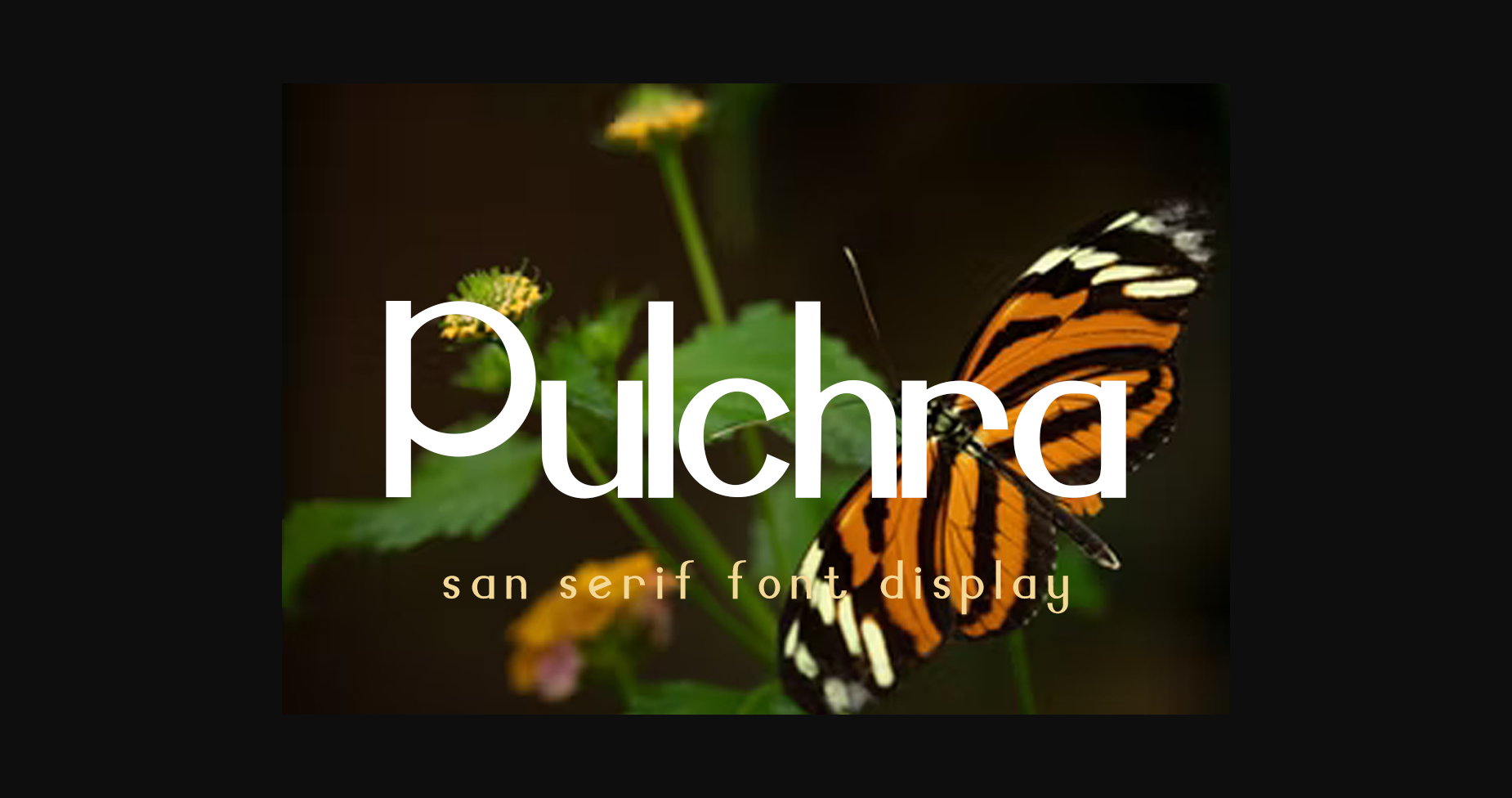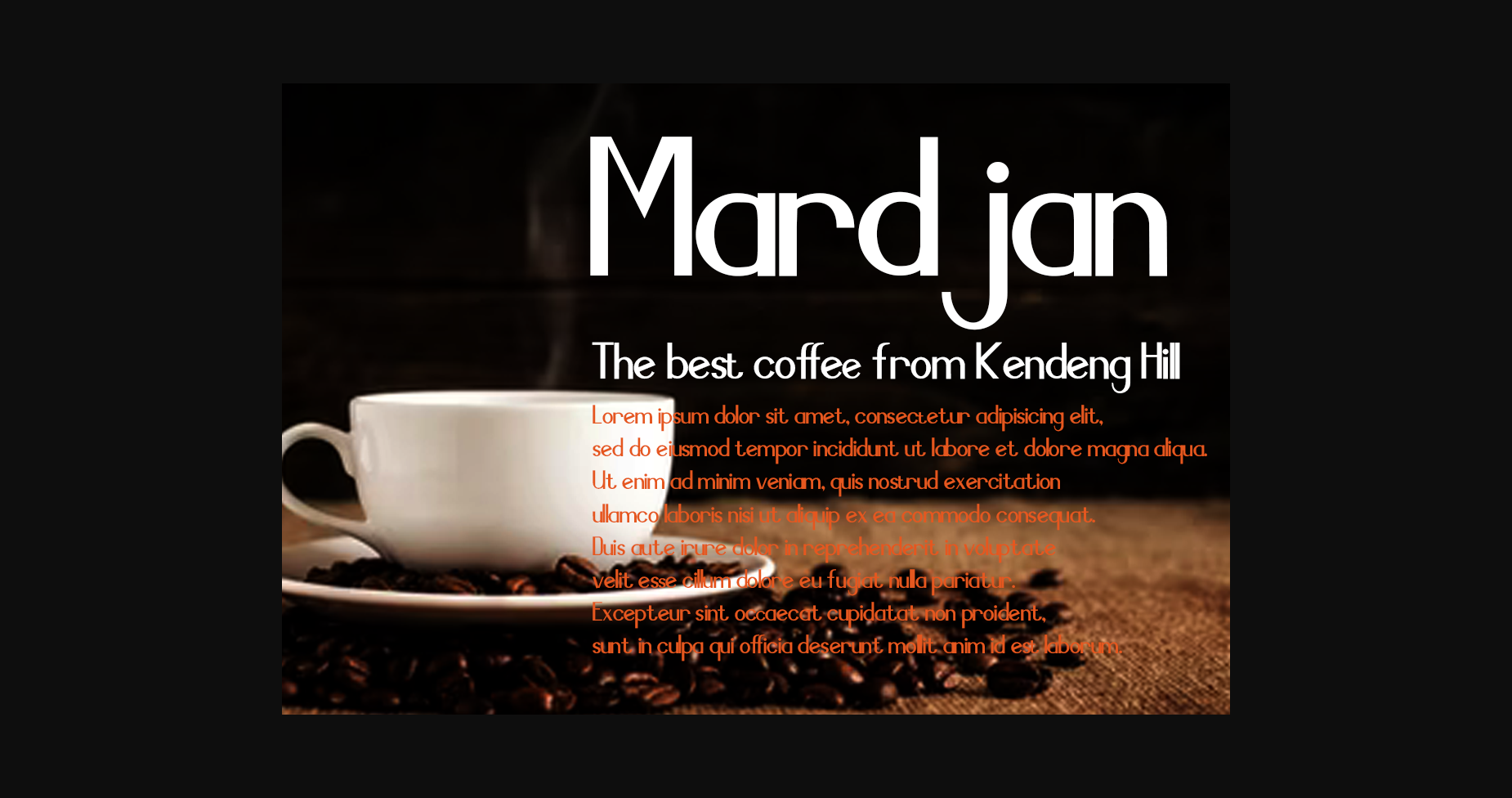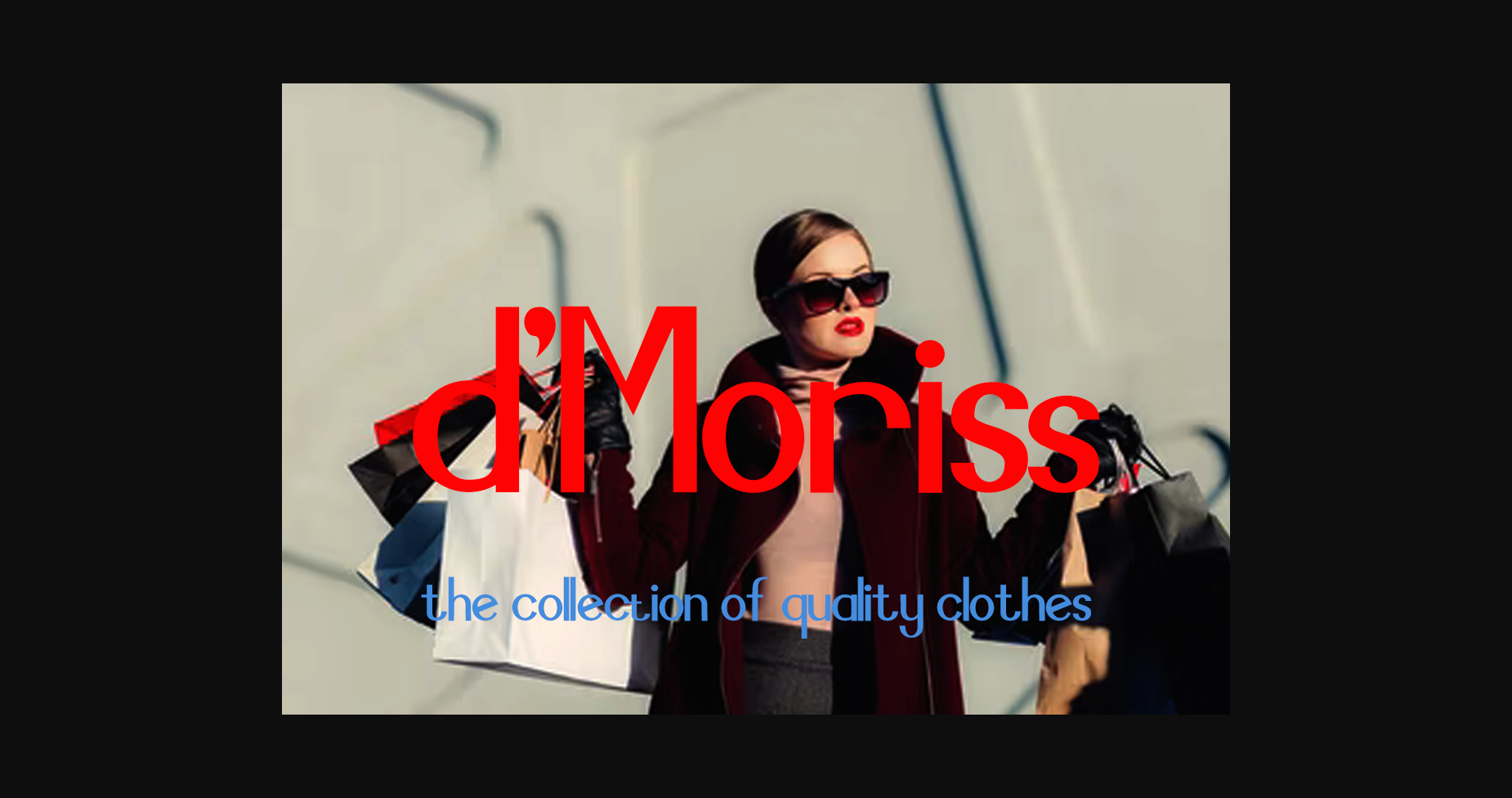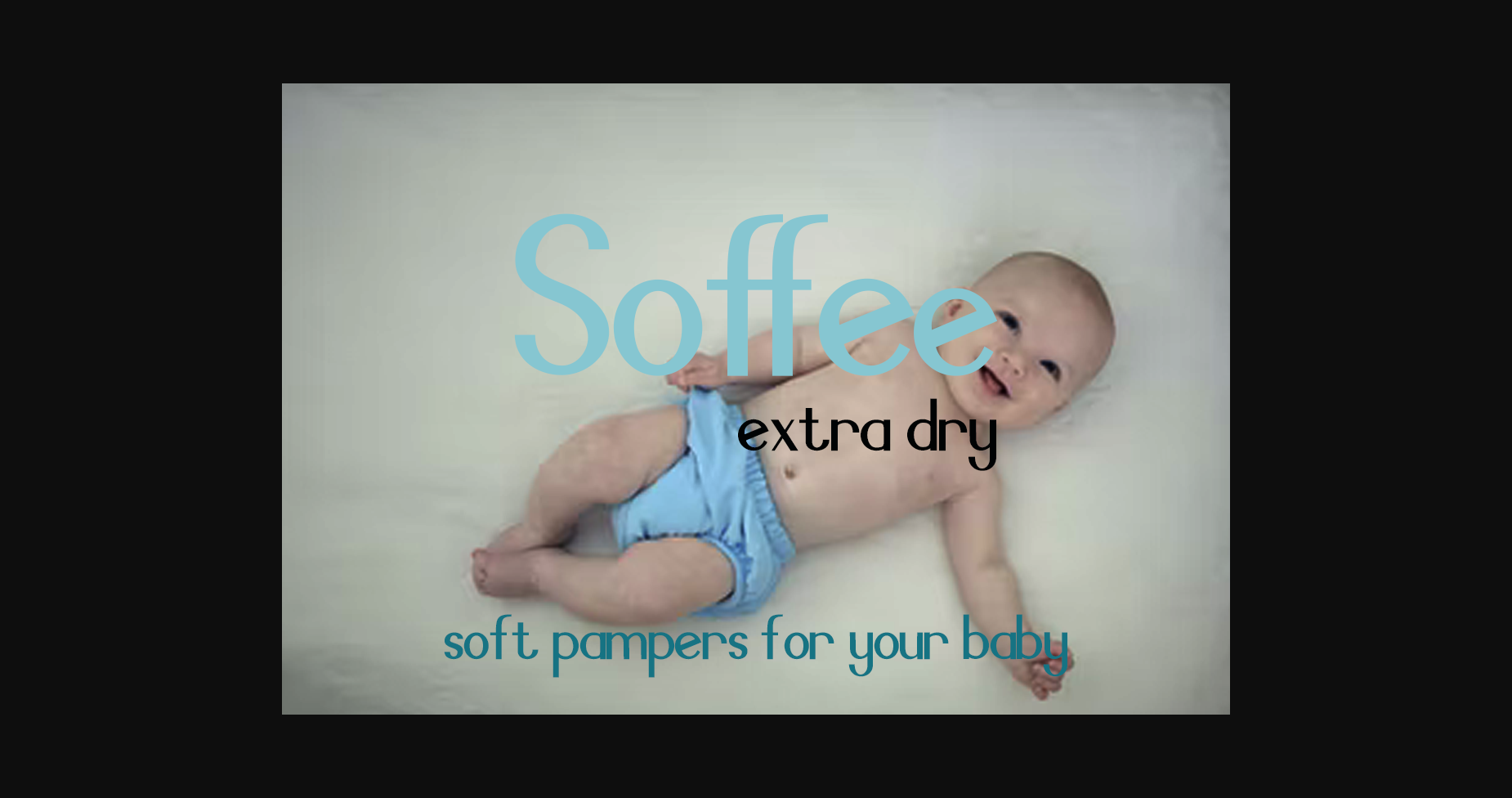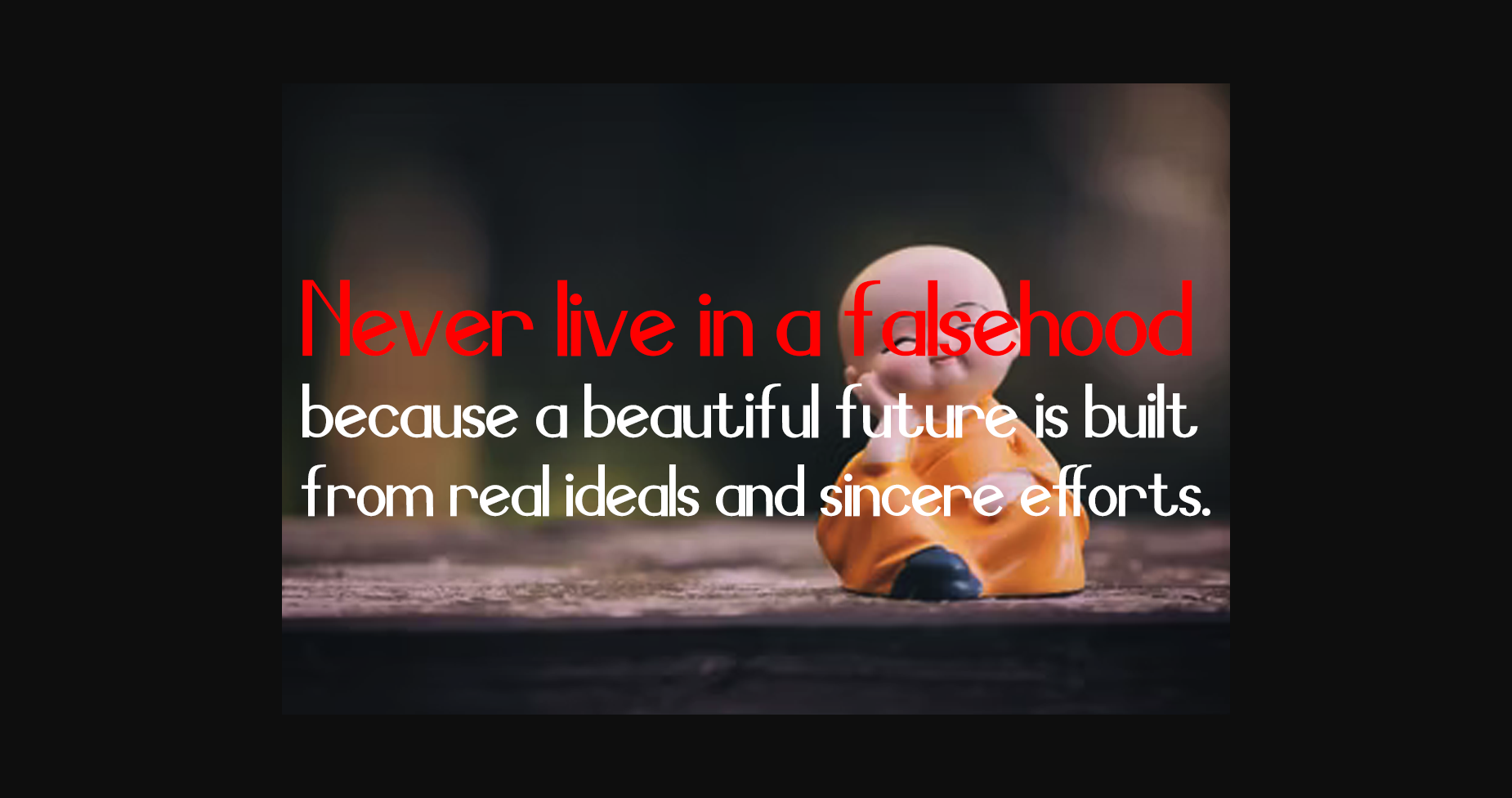
About Pulchra Font
Pulchra is an elegant and modern sans serif font. This minimalist and clean vibe can easily apply to your favorite designs such as book covers, magazines, social media posts, invitations, and so much more! This font is PUA encoded which means you can access all of the amazing glyphs and ligatures with ease!